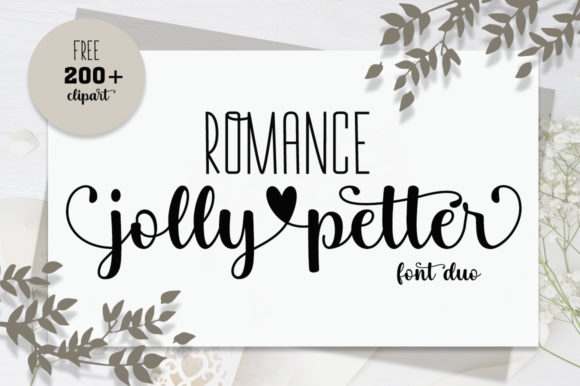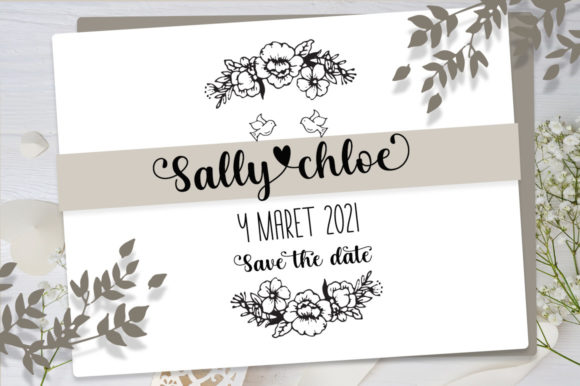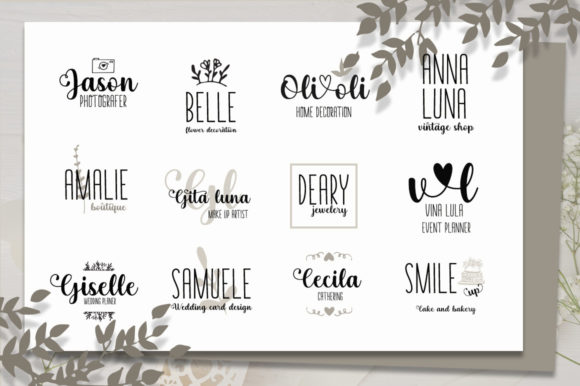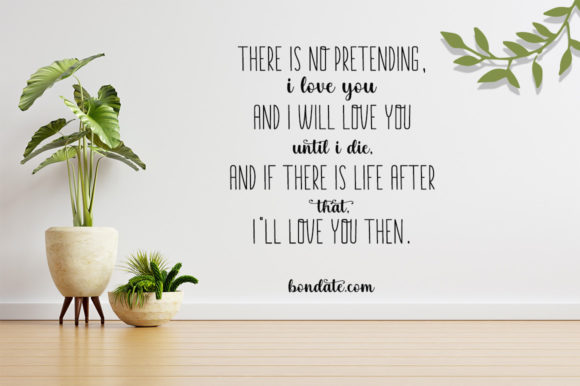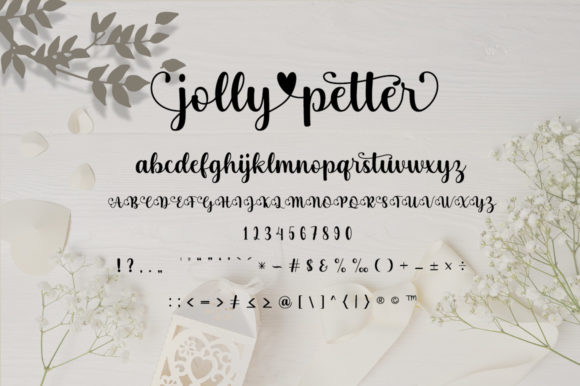
Romance Jollypetter Font
Romance Jollypetter is an elegant and dainty duo font (handwritten and sans serif), that features sweet and delicate swashes. This original look will appeal to a wide range of crafty ideas, from letterheads and titles, to stationery.